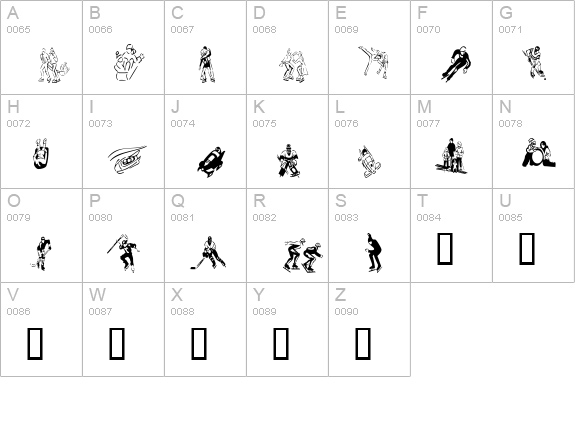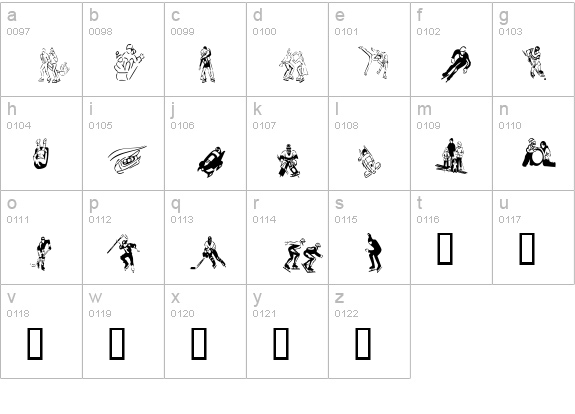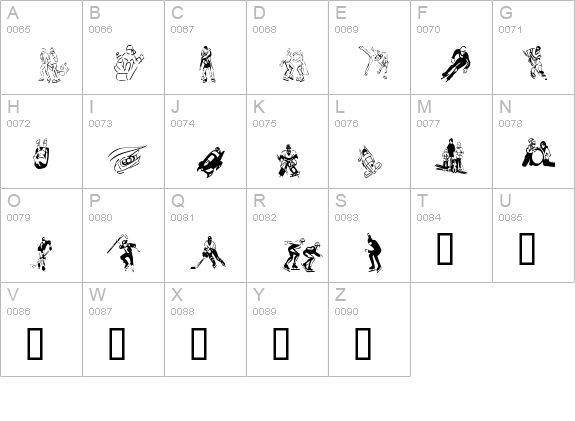
KR Winter Sports Font Details
Introducing the captivating and dynamic KR Winter Sports font, a perfect choice for all your winter-themed design projects. This font exudes a sense of excitement and energy, making it ideal for sports-related graphics, posters, and more. With its bold and striking letters, KR Winter Sports font is sure to make a statement and leave a lasting impression. Best of all, KR Winter Sports font is available for free download at FontsMarket.com. Whether you're a designer, illustrator, or simply looking to add a touch of winter magic to your creations, this font is a must-have in your toolkit. Embrace the spirit of winter and elevate your designs with the unique and eye-catching KR Winter Sports font today!